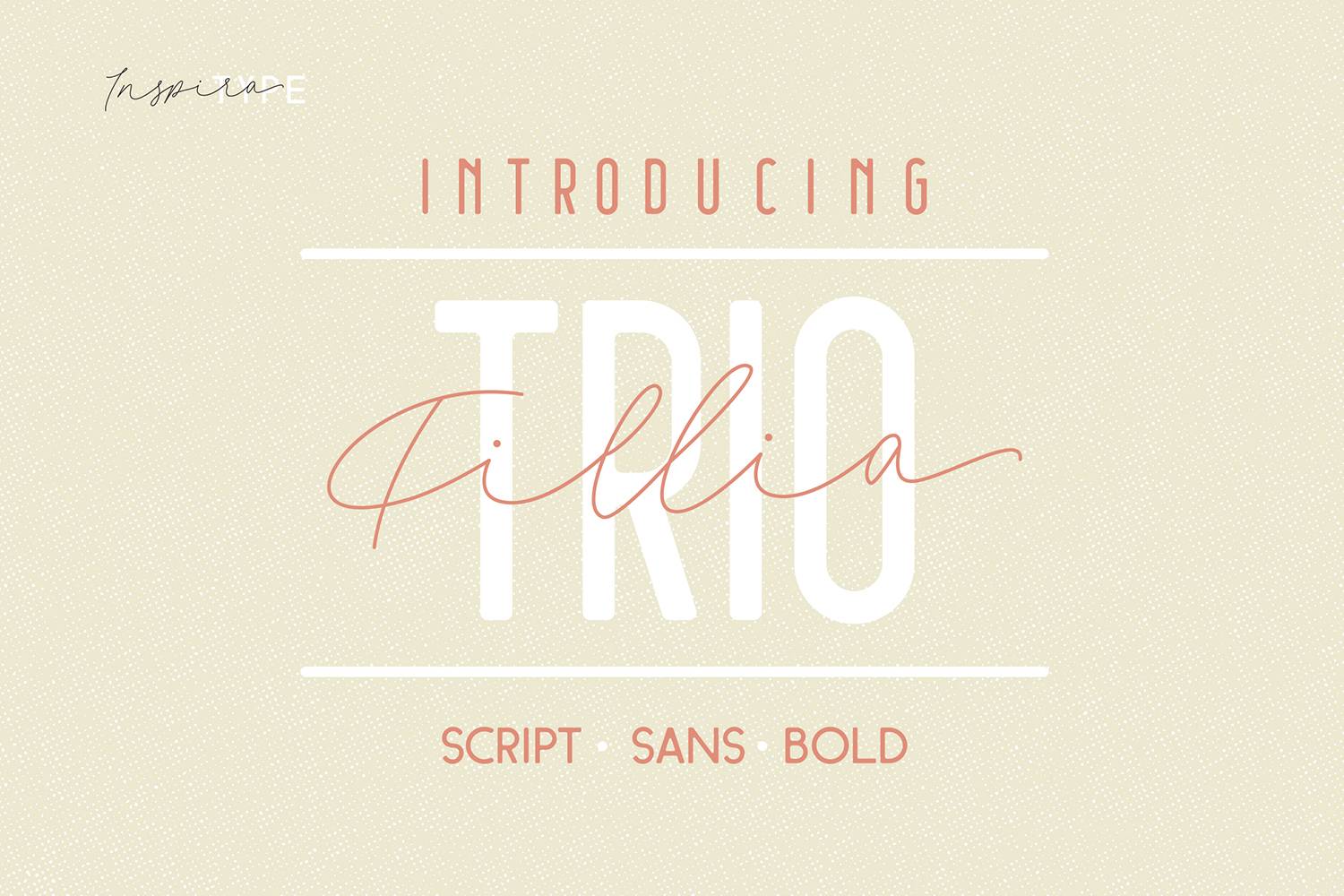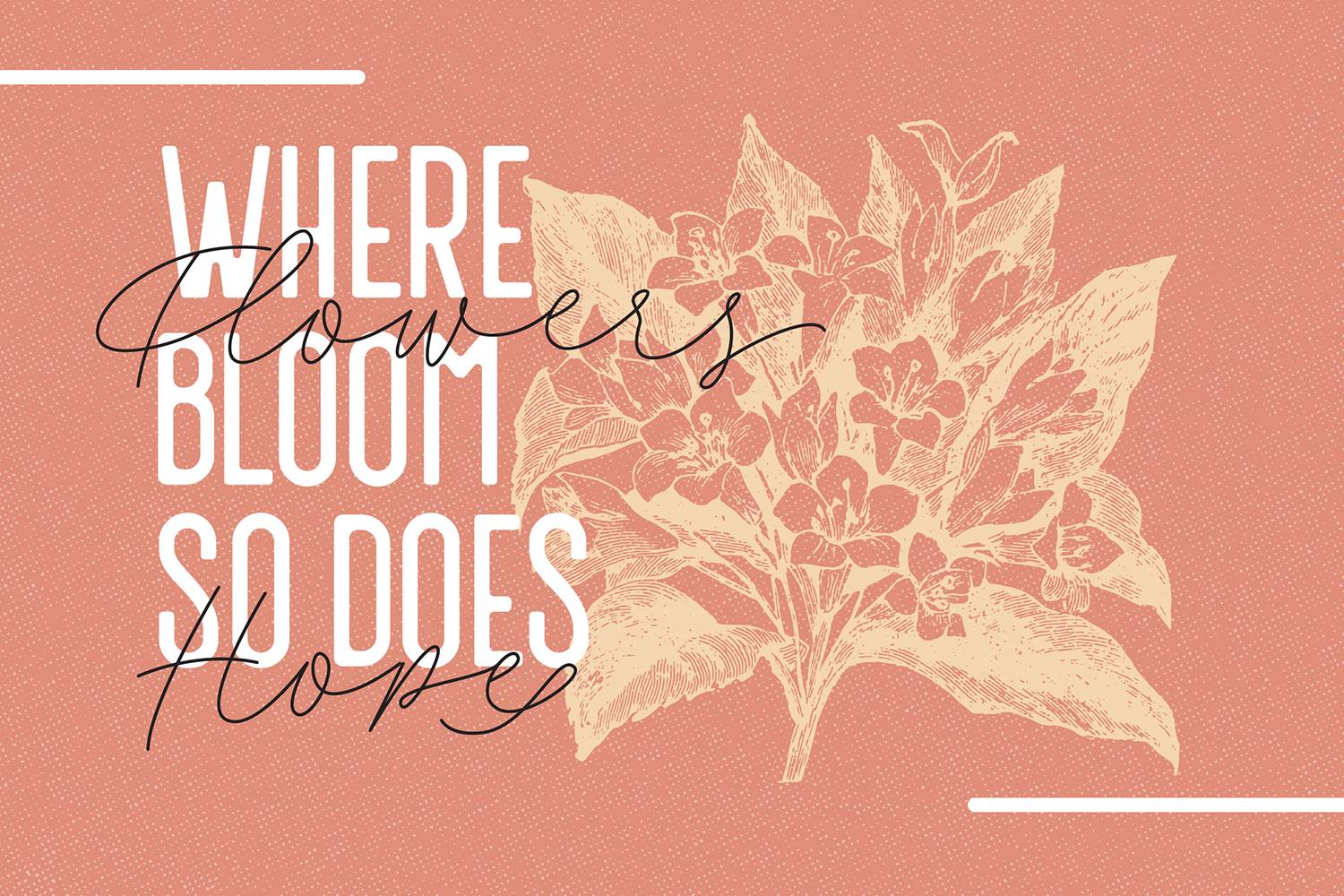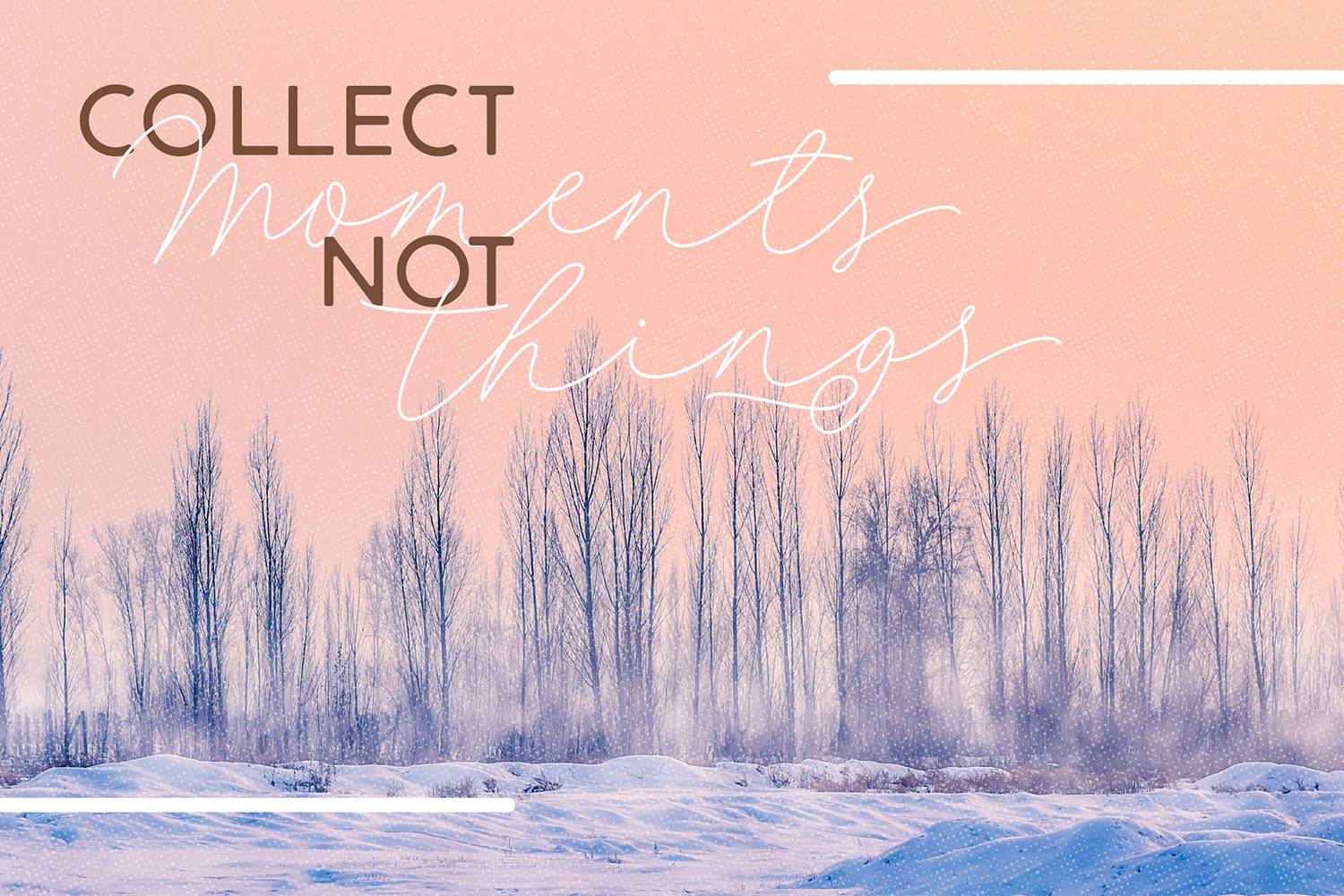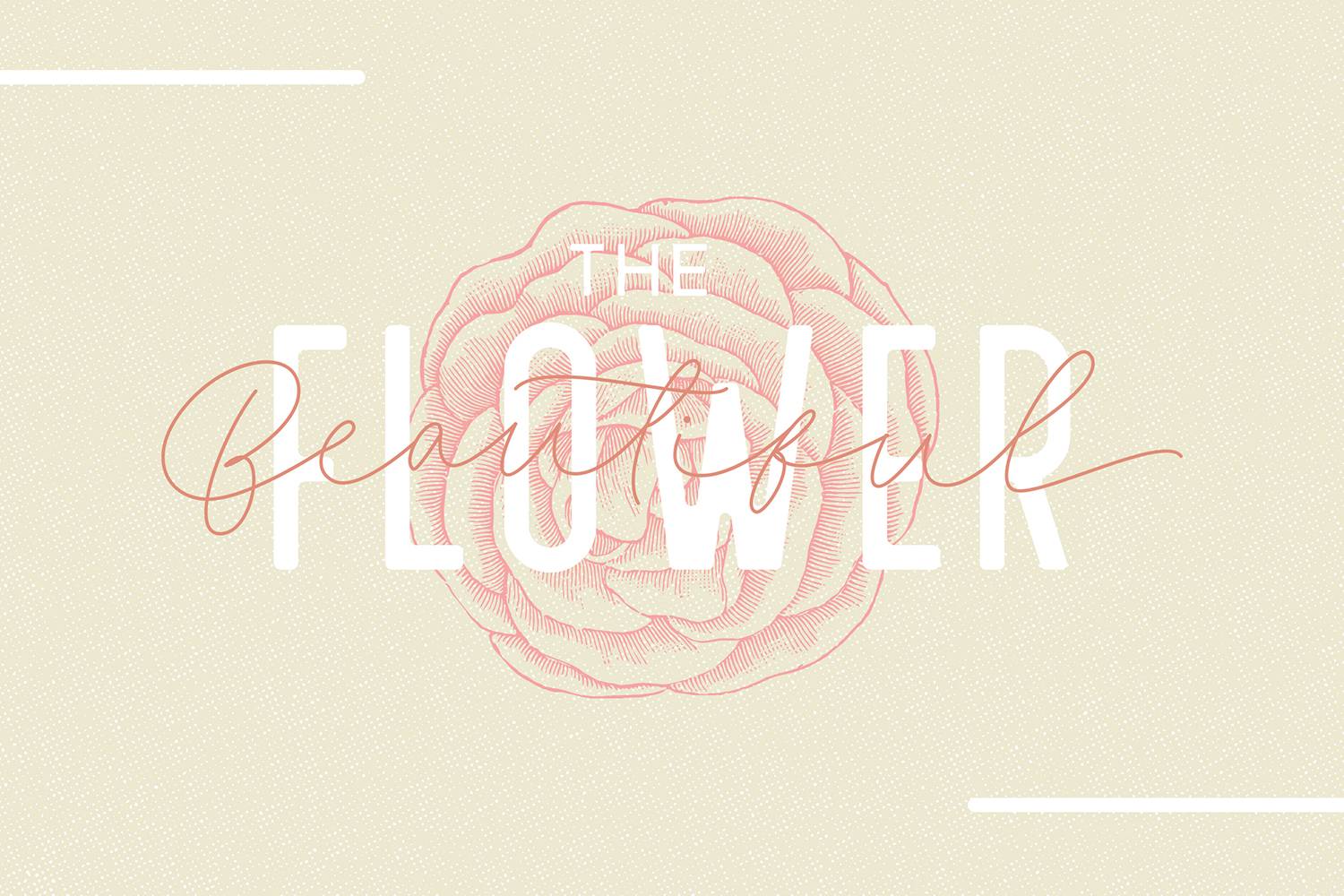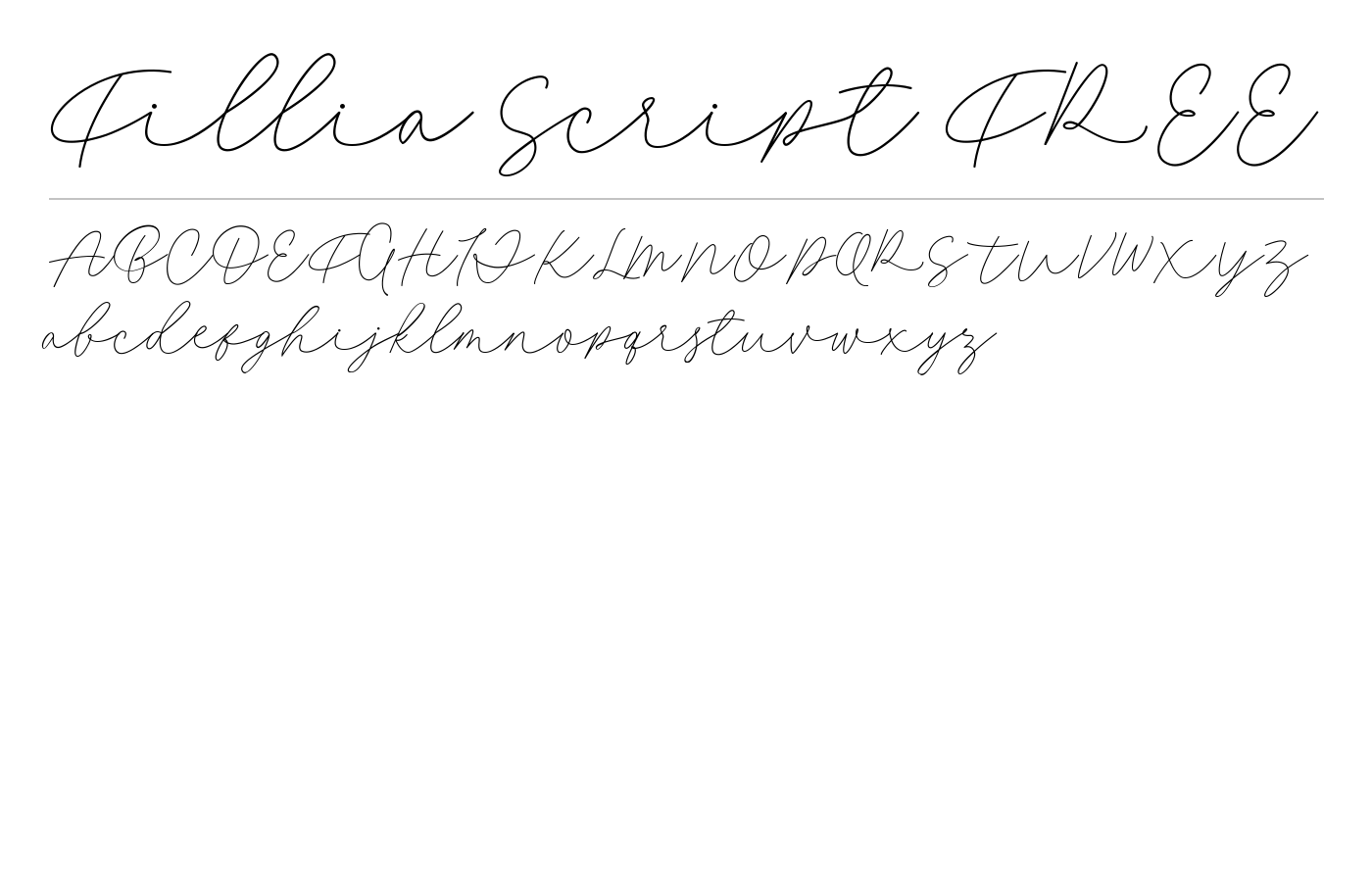
Filia is a delicate, elegant script font with slender, flowing strokes that mimic natural handwriting. Its light weight and airy structure make it perfect for designs that require a touch of sophistication and subtle charm, such as wedding invitations, branding for fashion or beauty, and elegant headlines. The font’s graceful curves and smooth connections convey a refined and personal feel, ideal for projects seeking a modern yet timeless handwritten style.
Filia Font
About Filia Font
| Font family | Filia Font |
| Designer | inspiratype |